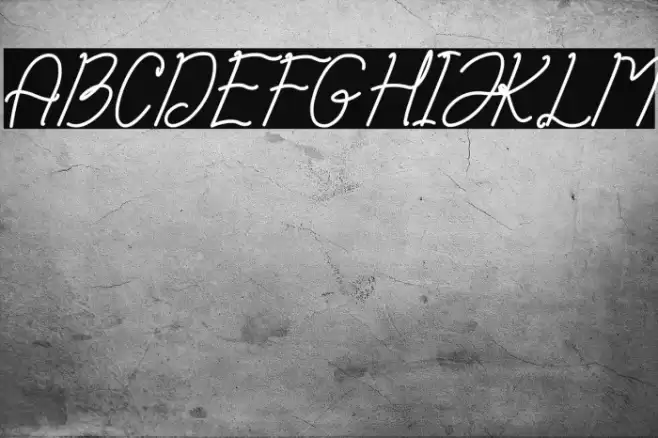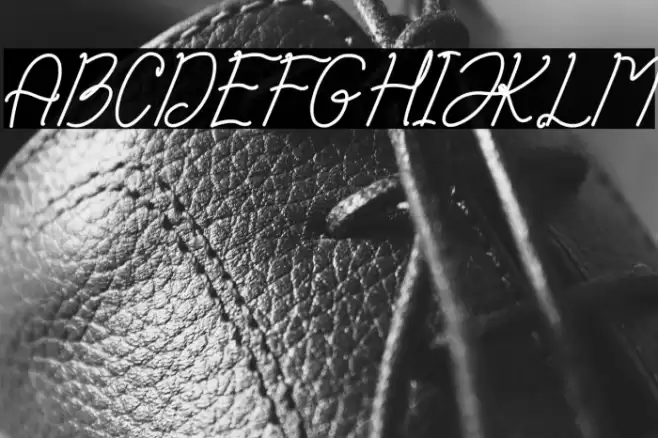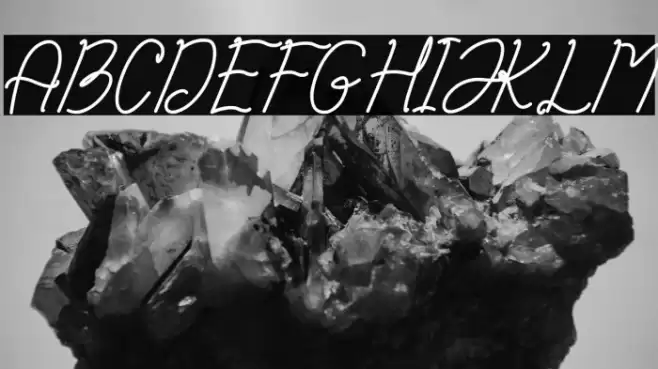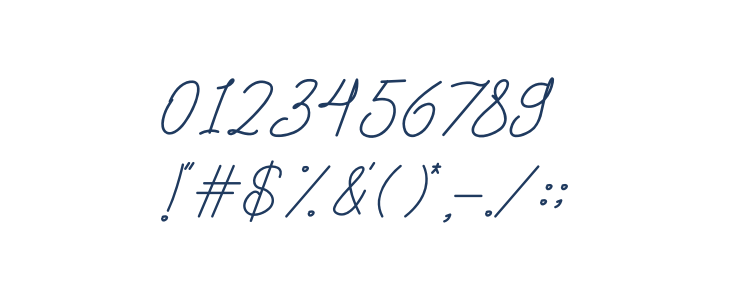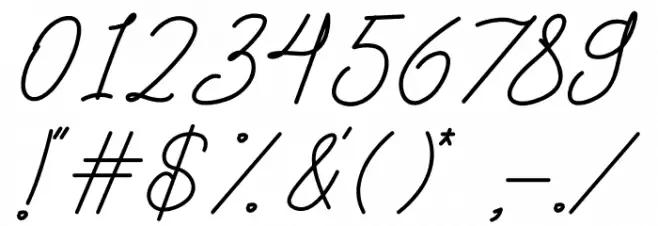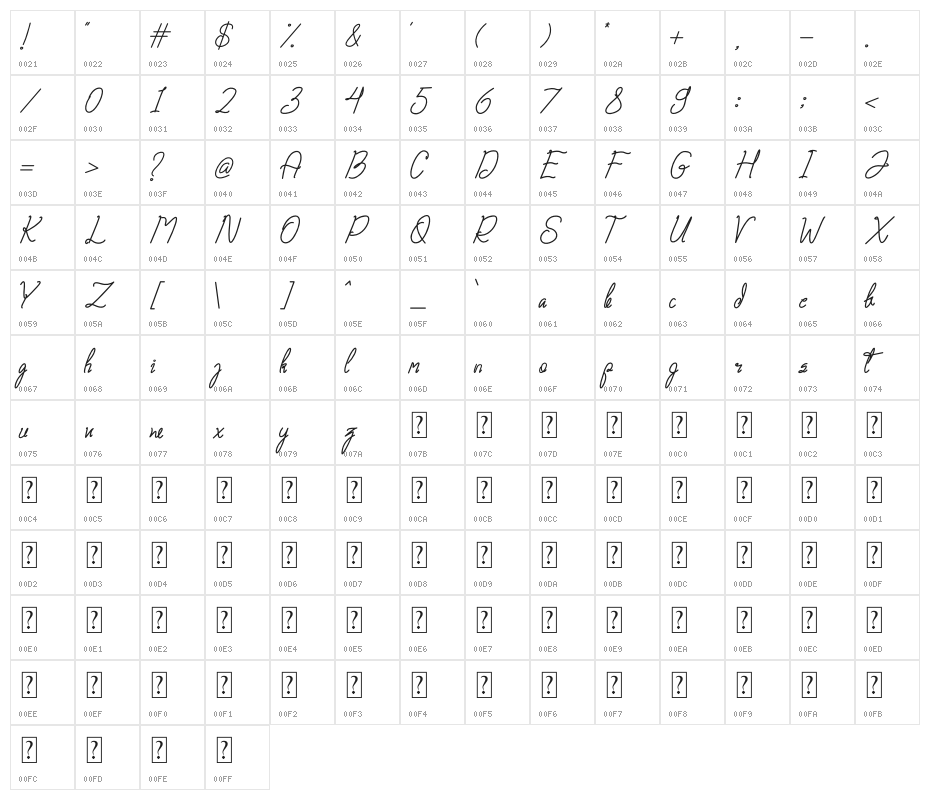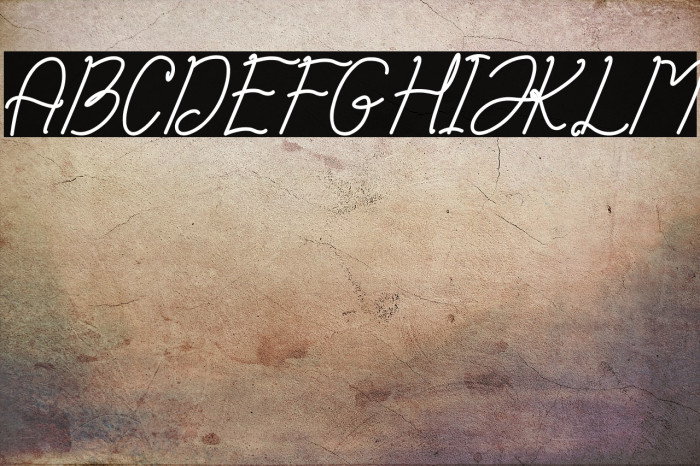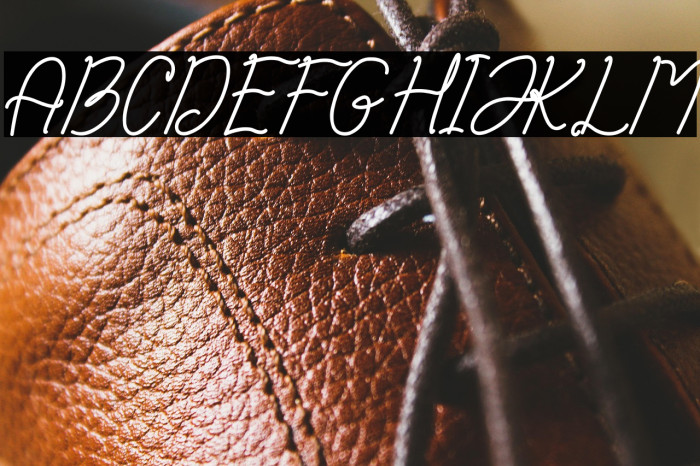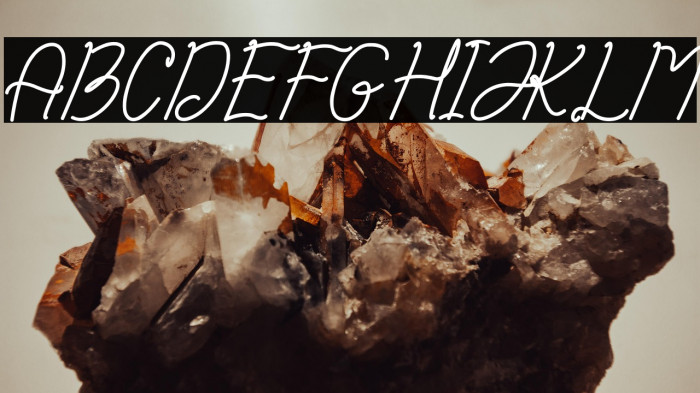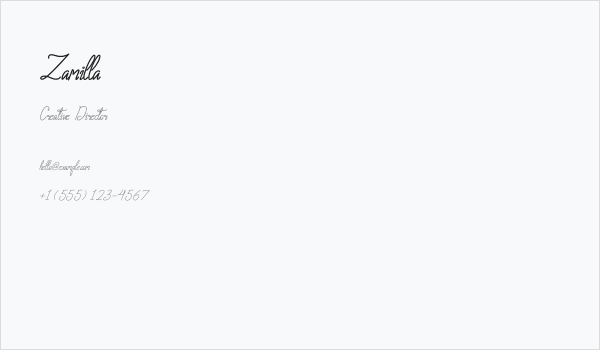
Zamilla Font
Zamilla Description
This font features a fluid, cursive style that mimics elegant handwriting. The uppercase letters are tall and slightly slanted, giving a sense of movement and grace. The lowercase letters are more compact but maintain the same flowing style, with smooth connections between characters. Numbers are consistent with the overall cursive theme, offering a cohesive look. Special characters are designed to blend seamlessly with the alphabet, maintaining the font's elegant and sophisticated appearance. The overall impression is one of refinement and artistic flair, making it suitable for projects that require a personal touch.
A fluid, cursive font with an elegant, handwritten style from Uncategorized fonts.
- Font: Zamilla
- Proposed Projects: Ideal for wedding invitations, personal branding, elegant stationery, and artistic projects.
- Overall Style: Elegant, Artistic
- Use Case: Logos, Invitations, Personal Branding
Zamilla UPPERCASE
Zamilla LOWERCASE
Zamilla OTHER CHARS